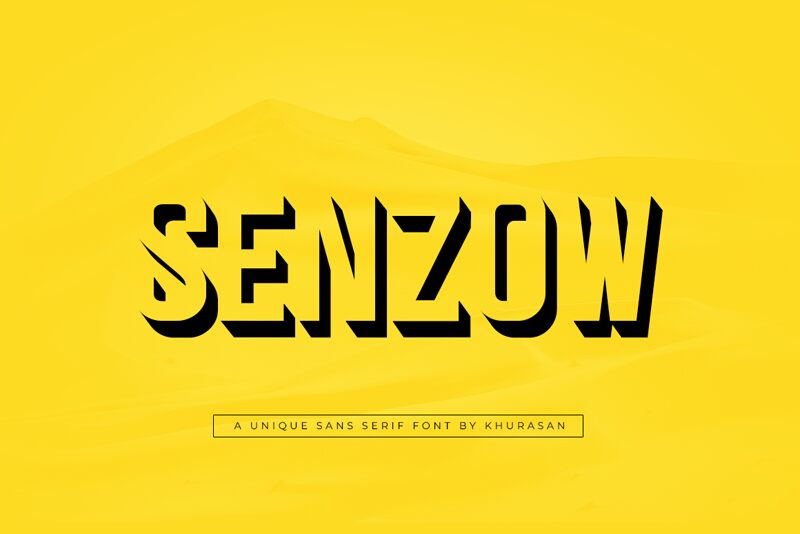
Senzow
Senzow, the stunning display font designed by Khurasan, showcases bold and condensed letters with a mesmerizing 3D style that is sure to captivate any audience. Perfect for headlines, posters, and branding materials, this typeface packs a punch in its ability to make a statement. Senzow's slim width and hefty weight make it ideal for projects that require an impactful and attention-grabbing design. Whether you're creating eye-catching advertisements or designing striking packaging labels, Senzow is the perfect choice for anyone looking to elevate their typography game.